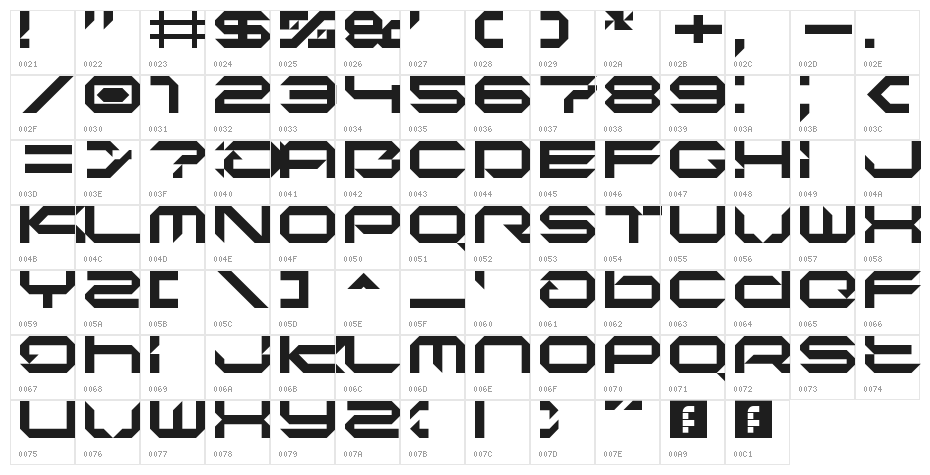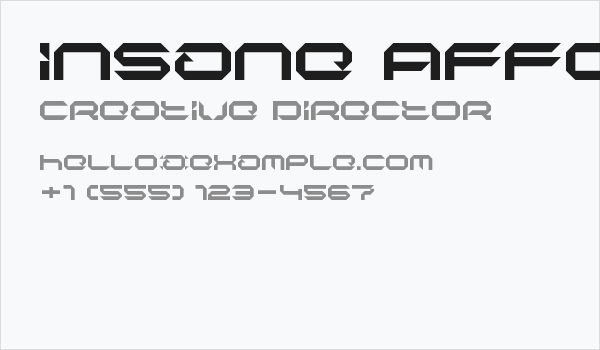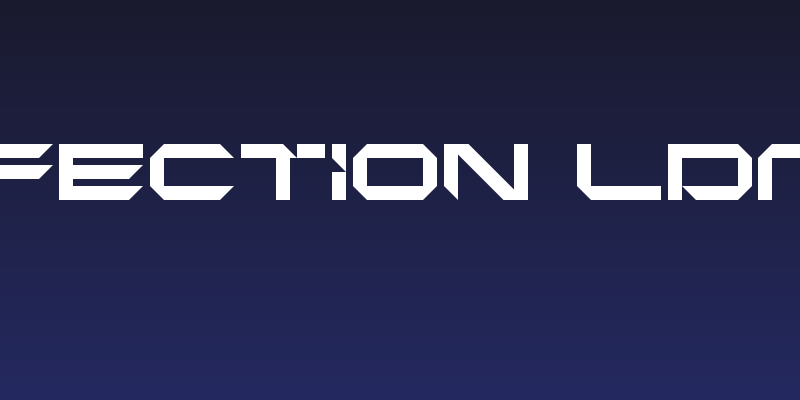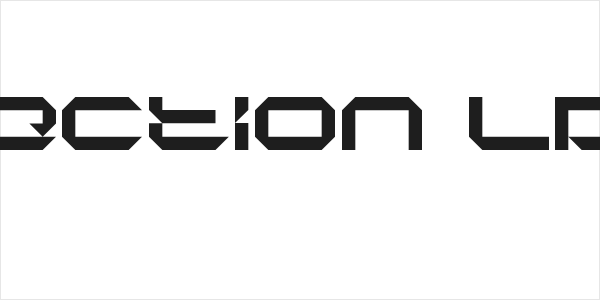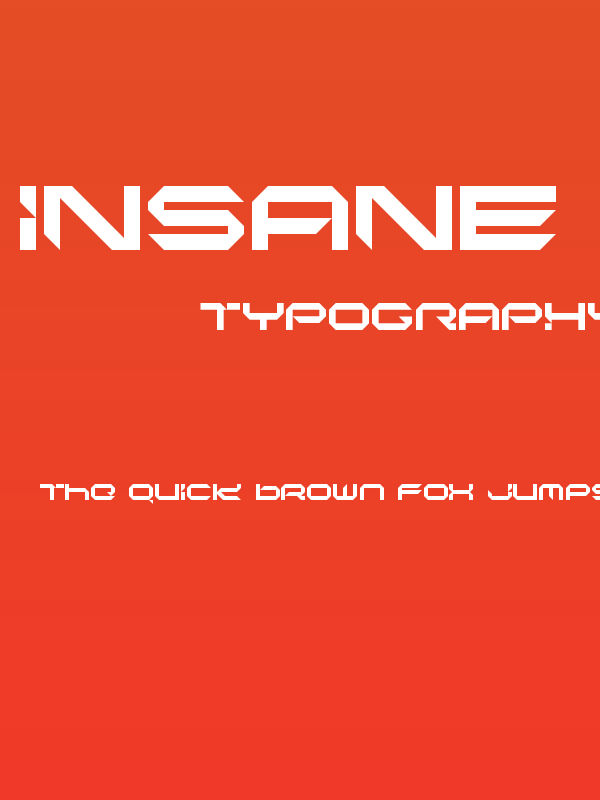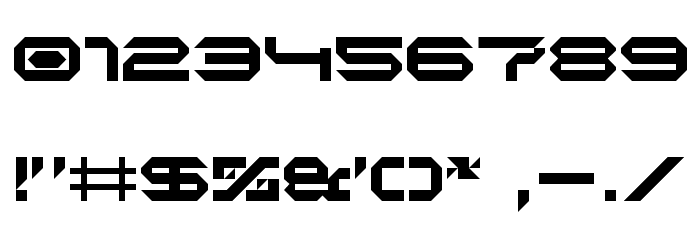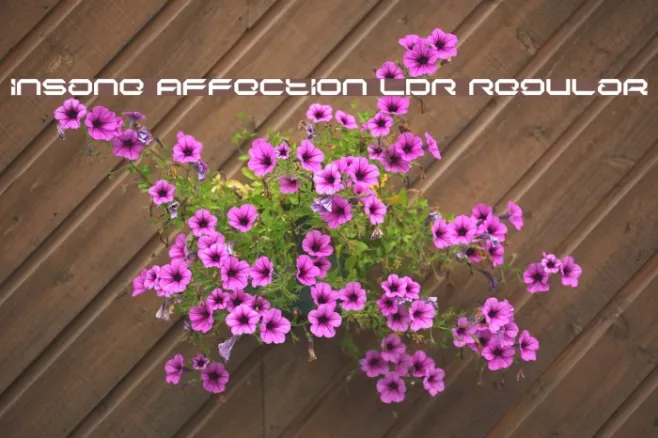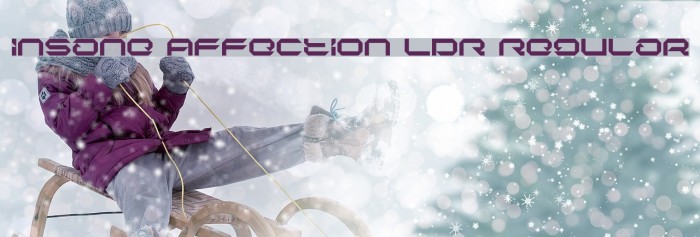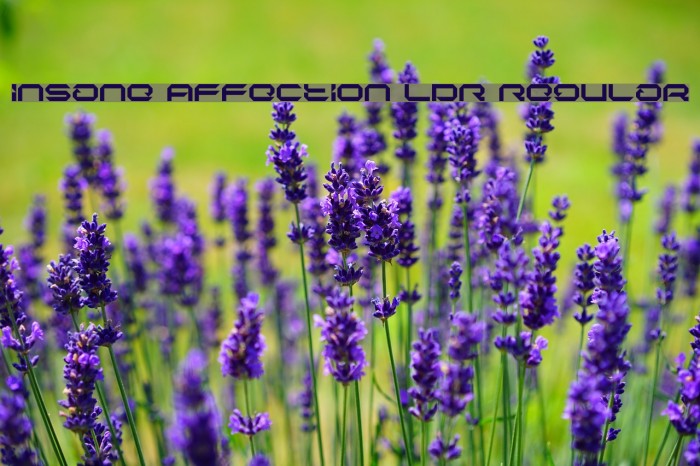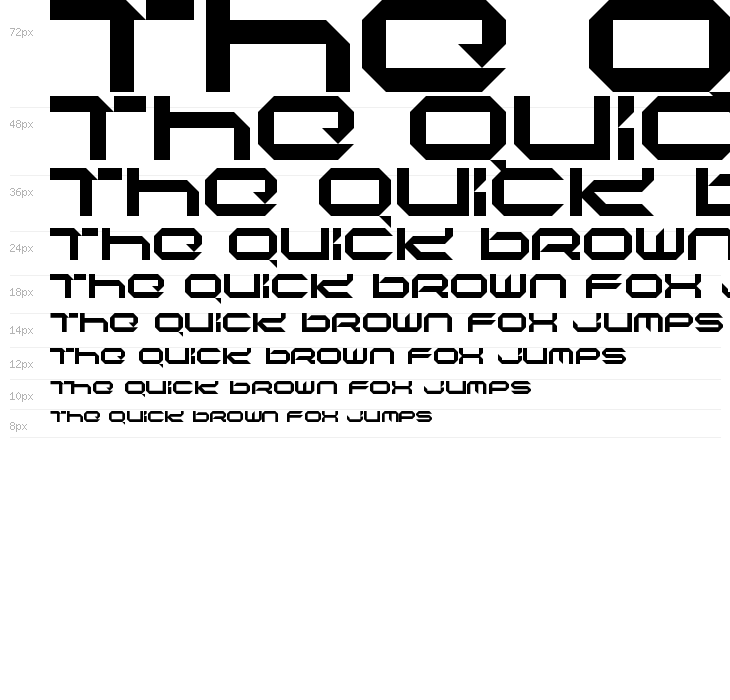
Insane Affection LDR Regular Font
Insane Affection LDR Regular Description
This font features a futuristic and geometric design, characterized by sharp angles and a bold presence. The uppercase and lowercase letters maintain a consistent style, with angular cuts and a blocky appearance that suggests a modern, tech-inspired aesthetic. The numerals and special characters follow the same design principles, ensuring uniformity across all glyphs. The overall look is striking and unconventional, making it ideal for projects that require a distinctive and edgy typeface.
| Proposed Projects | Ideal for sci-fi themed designs, technology branding, video game titles, and modern posters. |